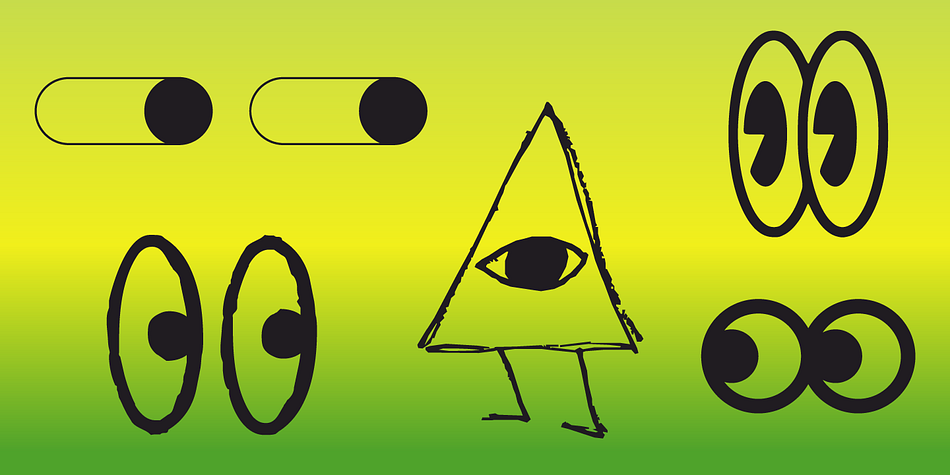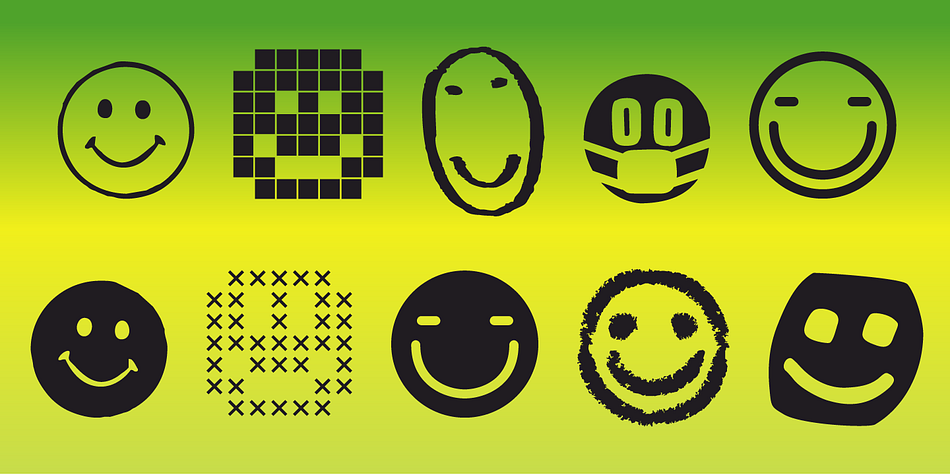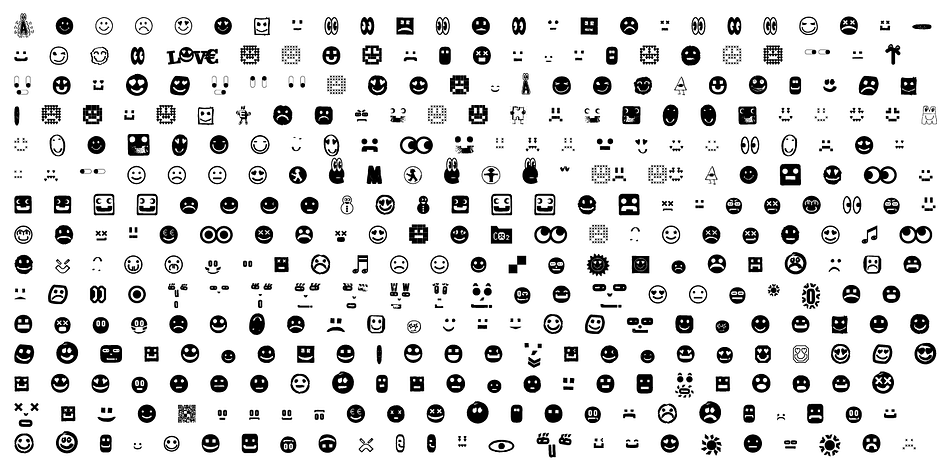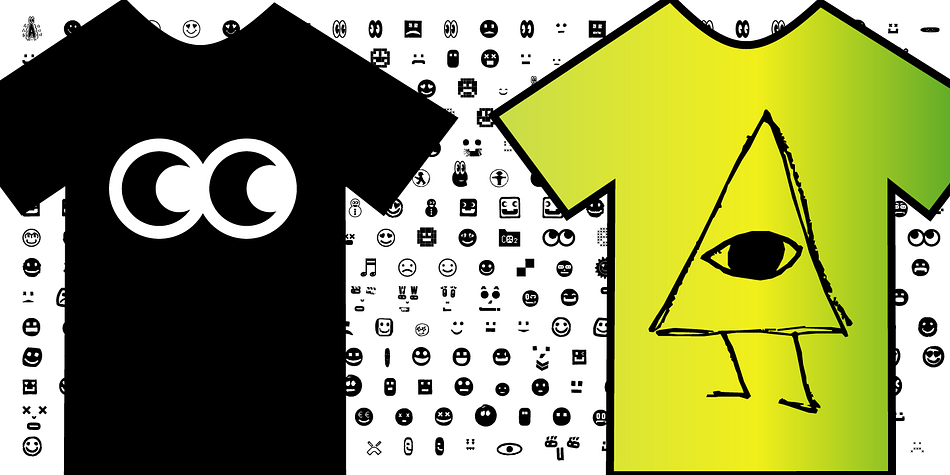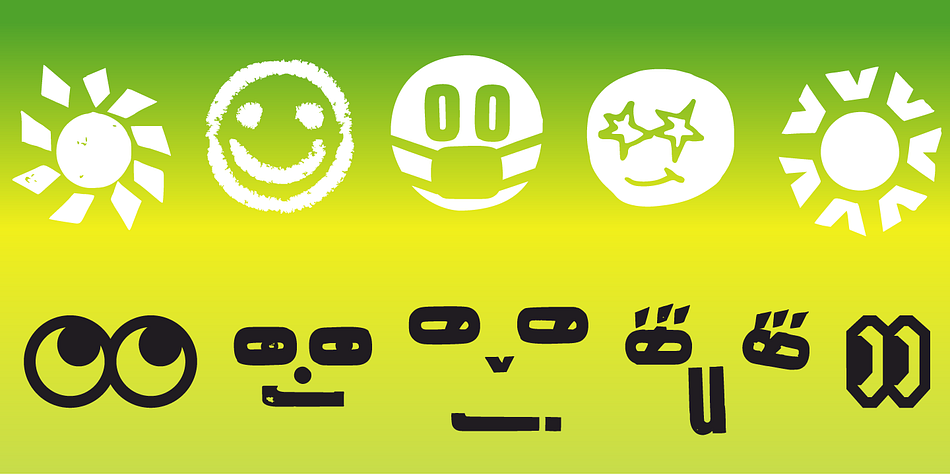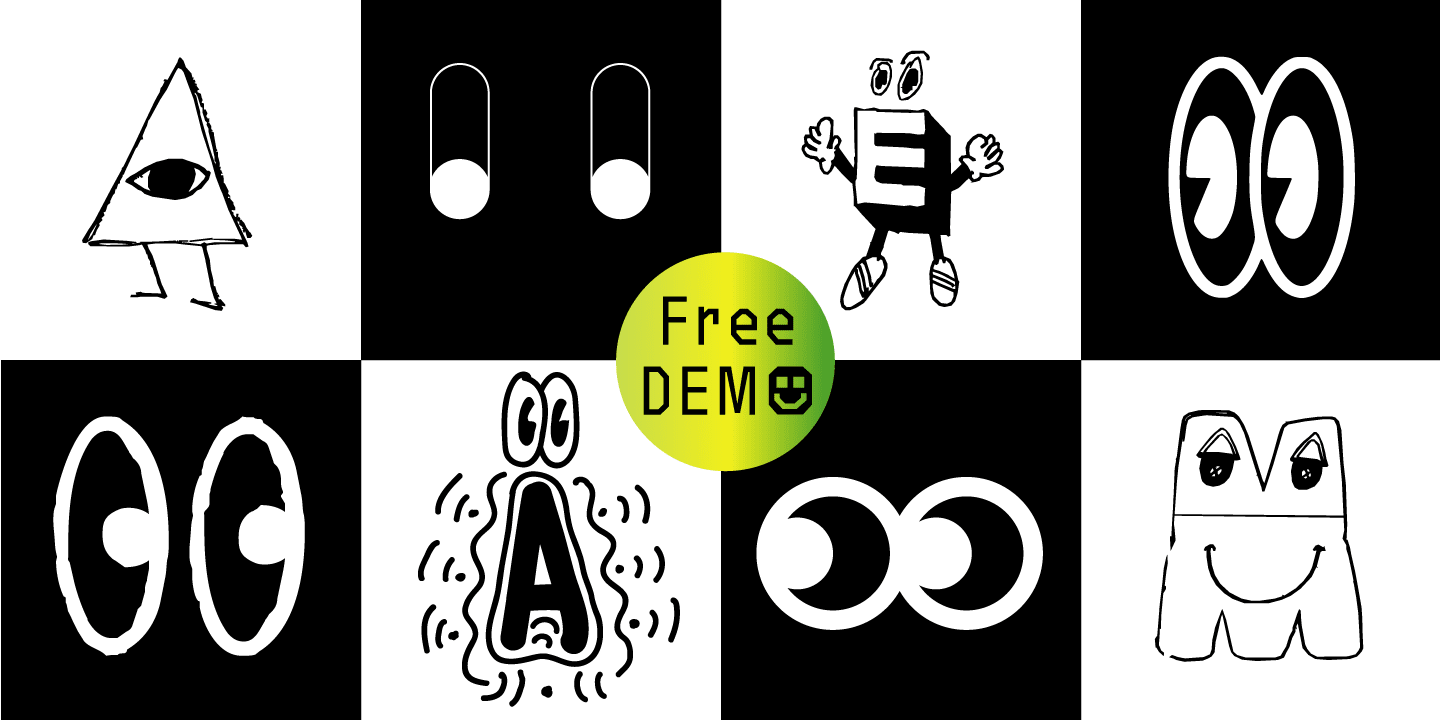
Face Type
Designed by Manuel Viergutz, Face Type is a dingbat font family. This typeface has two styles and was published by Typo Graphic Design.
The typeface Face Type is designed from 2021 for the font foundry Typo Graphic Design by Manuel Viergutz.
A mix from the TGD font collection with 1 font-style (Icons) incl. decorative extras like icons, dingbats, emojis ❤  ☺ and stylistic alternates (4 stylistic sets).
For use in logos, magazines, posters, advertisement plus as webfont for decorative headlines. The font works best for display size.
■ Font Cate­gory: Dis­play for head­line size
■ Glyph Set: 357 glyphs incl. decorative extras like icons